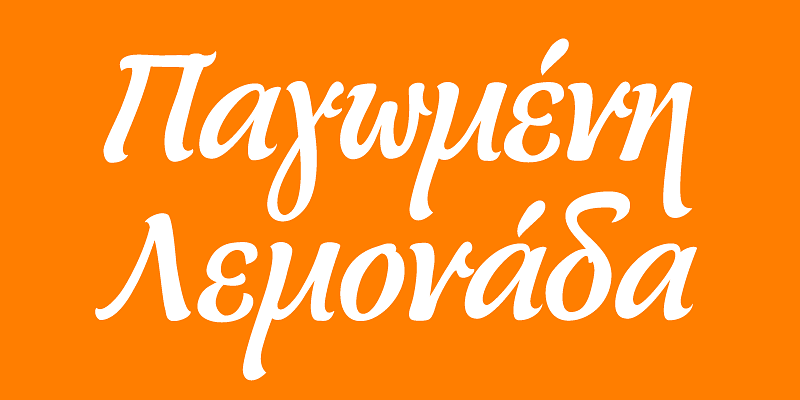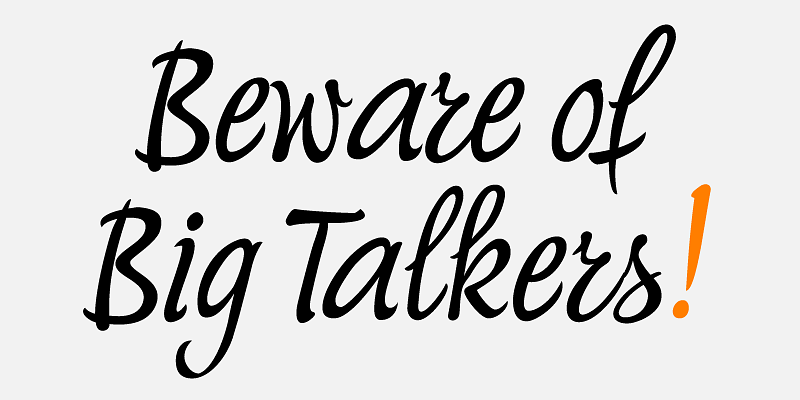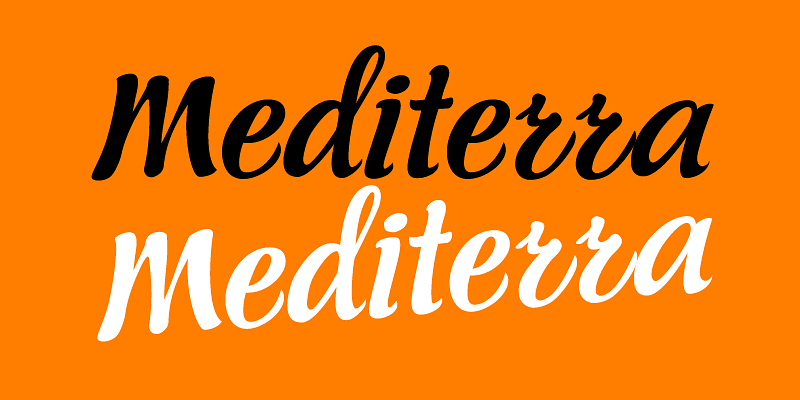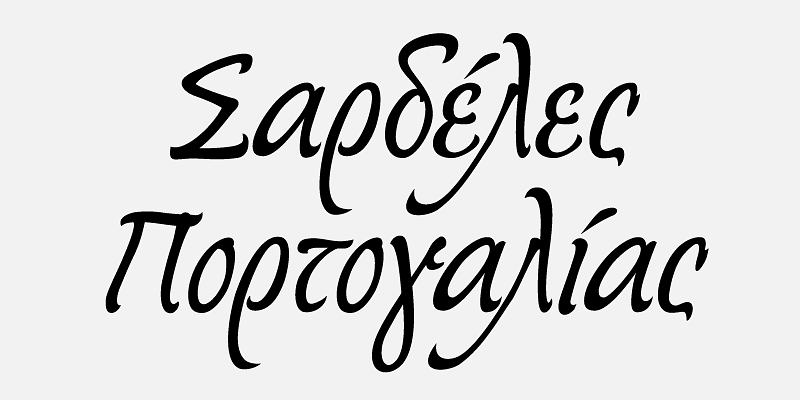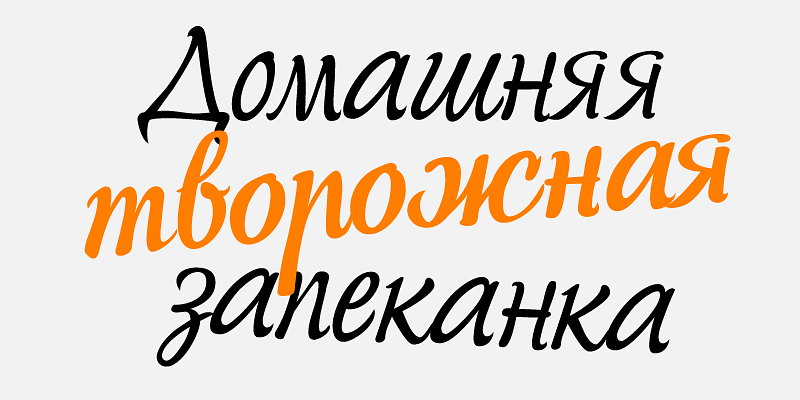
Sitting inside our offline vault and print catalogs for several years but still available for purchase, PF Mediterra is part of a valuable triad of typographic gems which are finally re-released, fully updated and upgraded. Designed by Vladimir Radibratović, a foremost calligrapher, type designer and illustrator, this trilogy of script typefaces was recently revamped by our design team with full support for Latin, Greek and Cyrillic.
Initially released in 2003 this typeface manifests a human, hand-crafted feel. Designed to excel particularly within casual and natural contexts, the organic Mediterranean essence of PF Mediterra has attracted attention to this popular typeface for brands on the supermarket shelves, wine labels, packaging, quotes, stationery and vintage lettering.